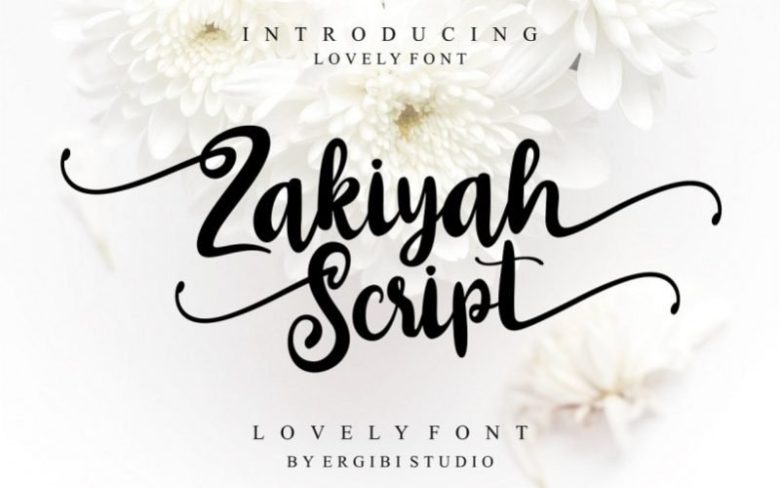
Zakiyah Script Font
Introducing Lovely font Zakiyah Script this font looks modern and awesome in many way to your latest project. Zakiyah is perfect for logos & branding, photography, invitation, watermark, advertisements,product designs, stationery, wedding designs,label ,product packaging, special events or anything that need special taste.